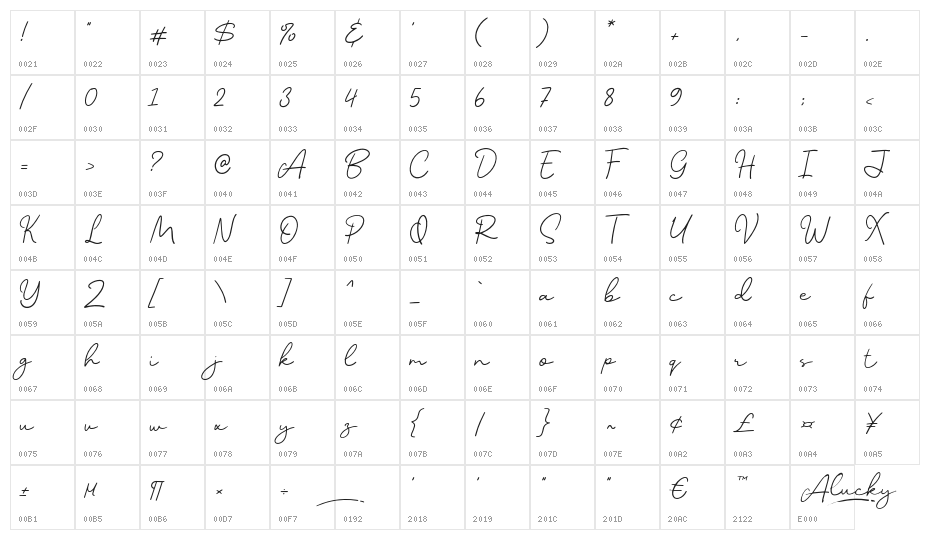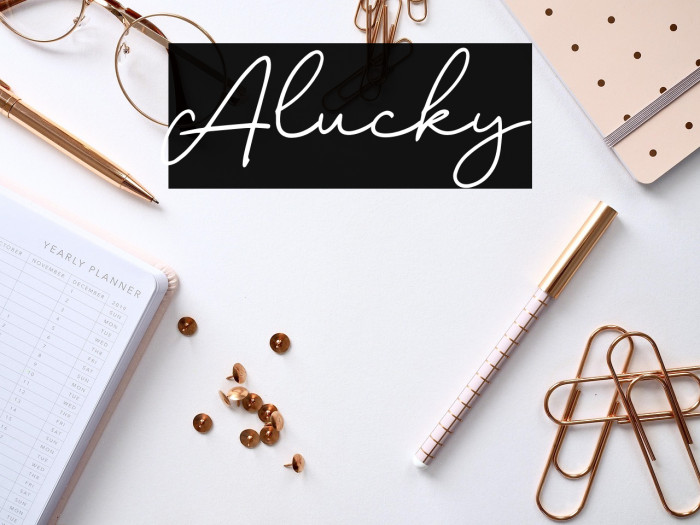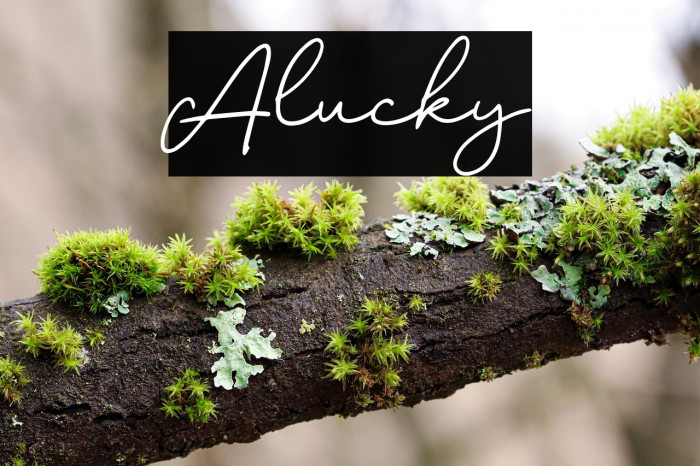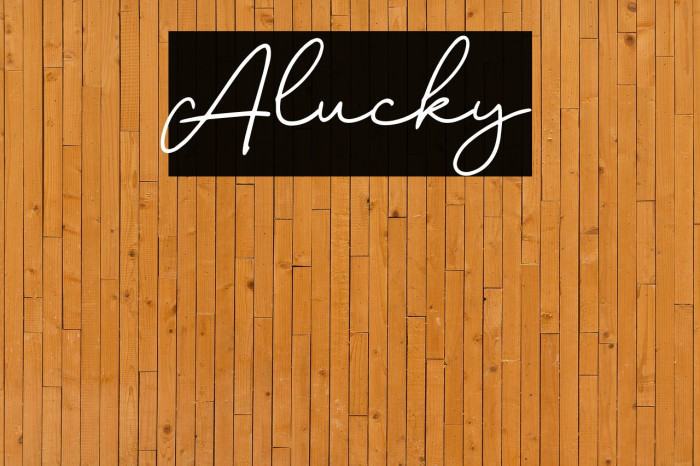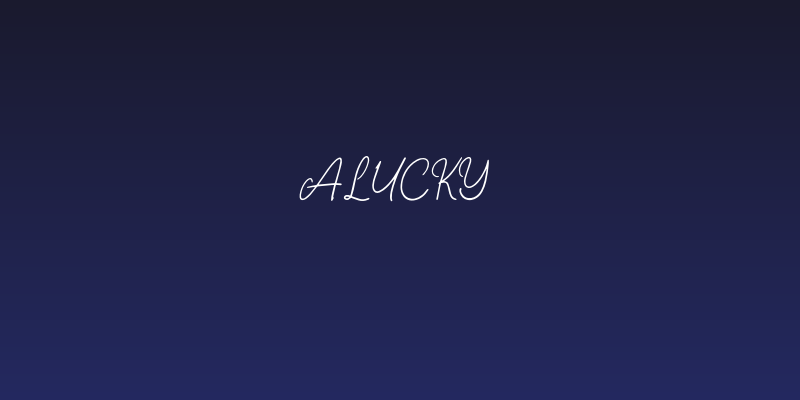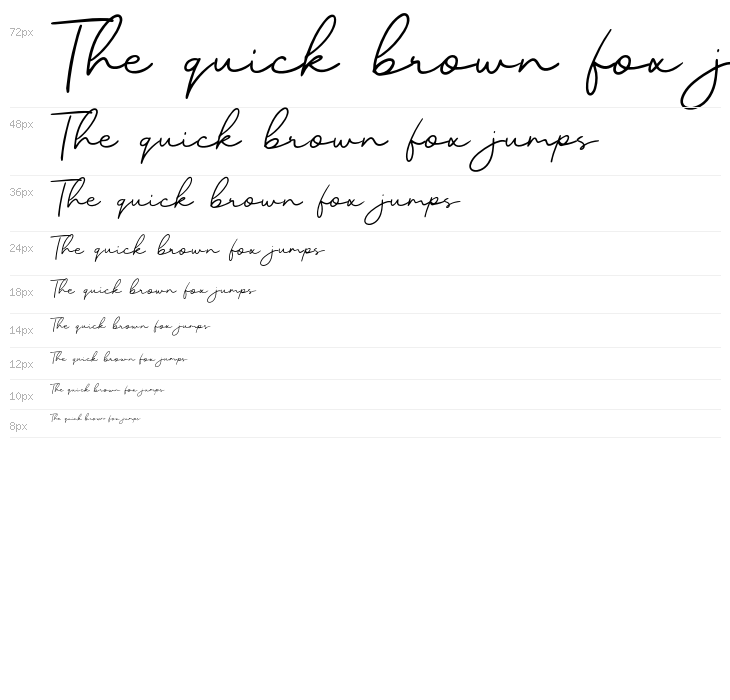
Alucky Font
Alucky Description
This font features a flowing, cursive style with elegant, looping strokes that convey a sense of sophistication and grace. The characters are interconnected, creating a seamless and fluid appearance. The uppercase letters are slightly larger and more elaborate, while the lowercase letters maintain a consistent, smooth flow. The numerals and special characters are designed to complement the overall script style, maintaining the same fluidity and elegance. This font is ideal for projects that require a personal touch, such as invitations, greeting cards, or branding materials that aim to convey elegance and warmth.
| Overall Style | Elegant, Decorative |
| Use Case | Logos, Invitations, Greeting Cards |
| Proposed Projects | Ideal for wedding invitations, personal branding, greeting cards, and elegant logo designs. |